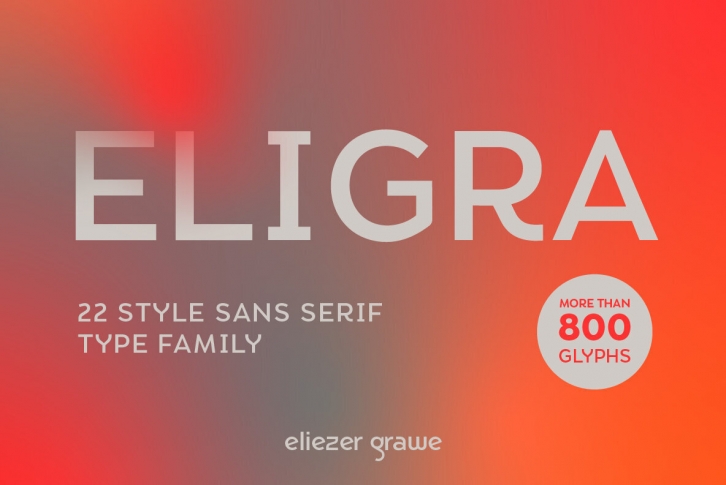
Eligra is a modern and elegant sans-serif typeface family inspired by old and new classics like Helvetica and Gotham. Its geometric and precise strokes create a versatile and timeless font. However, Eligra has unique features, like its subtle swirls and curves, that add a dash of personality while still maintaining the font's simplicity and clarity.
It is clean, clear, stable, and contemporary, making it a perfect choice for branding projects, websites, advertisements, documents, presentations or any other occasion where you want to convey evenness while maintaining a contemporary and innovative look.
Eligra has more than 800 glyphs, with support for Latin, Cyrillic and Greek characters, several alternates, and different styles of numerals.